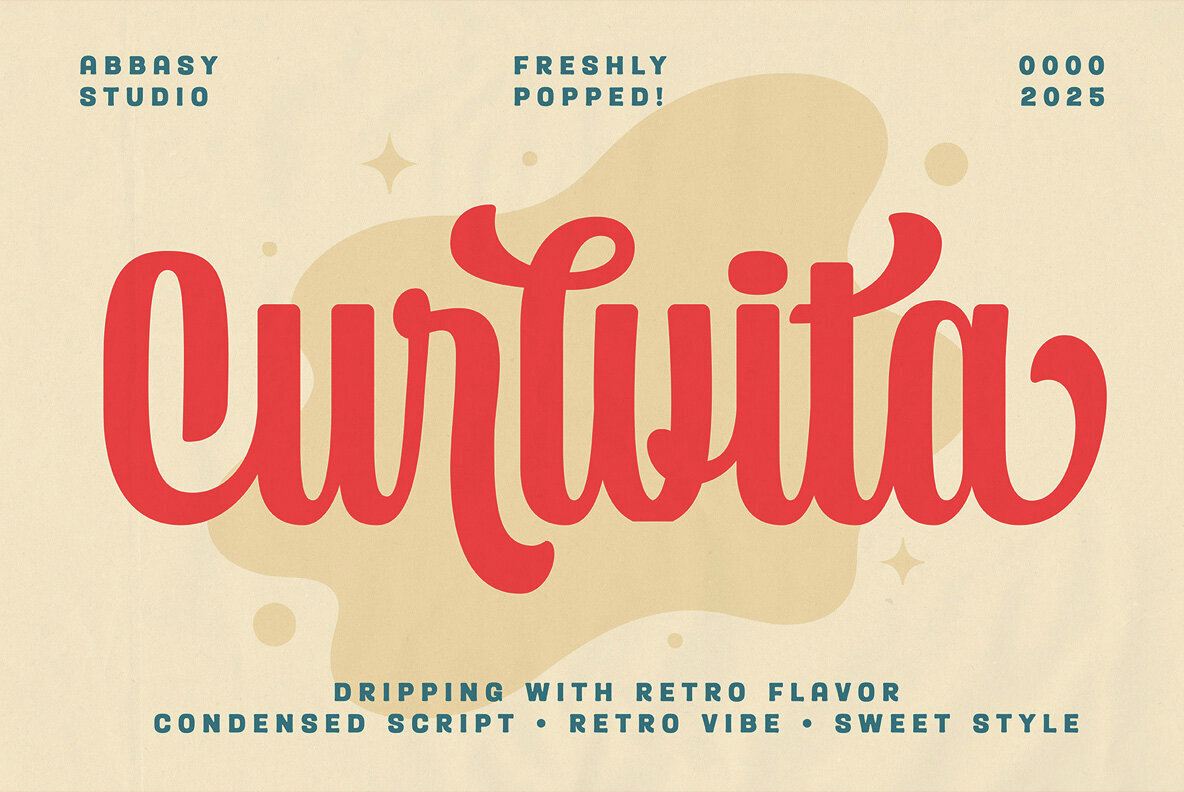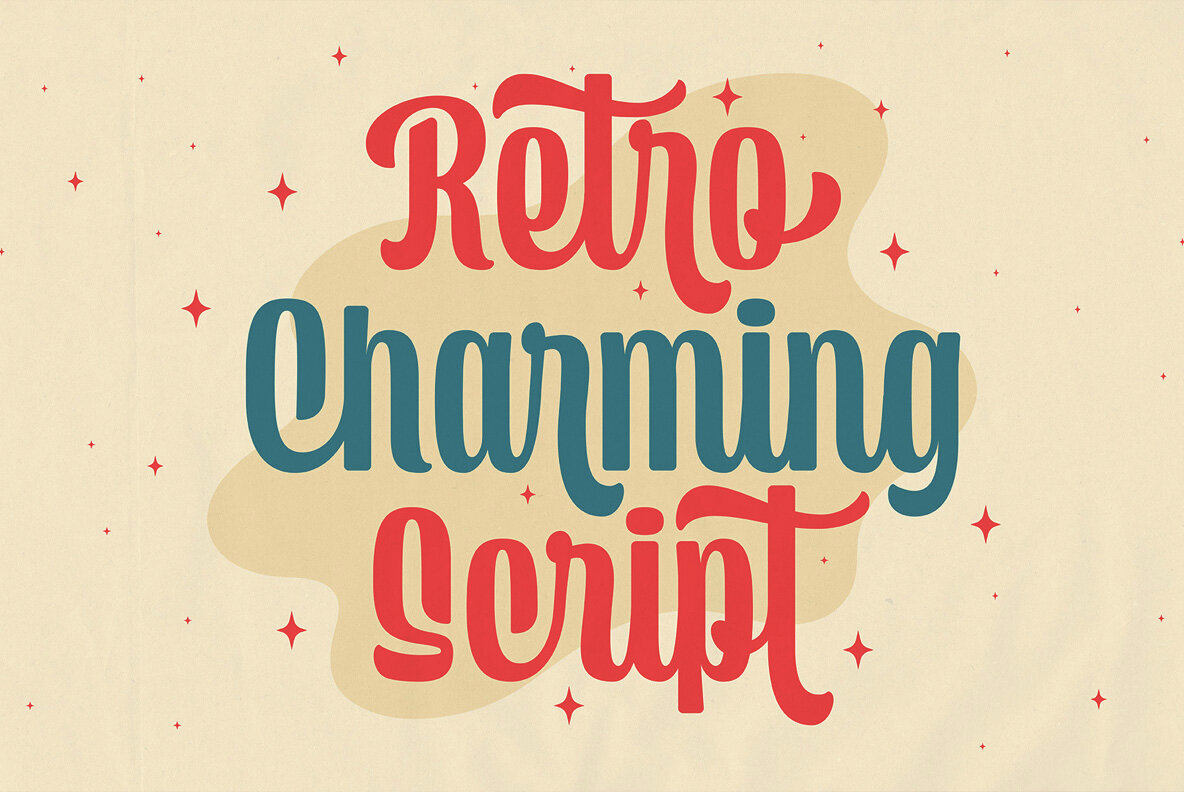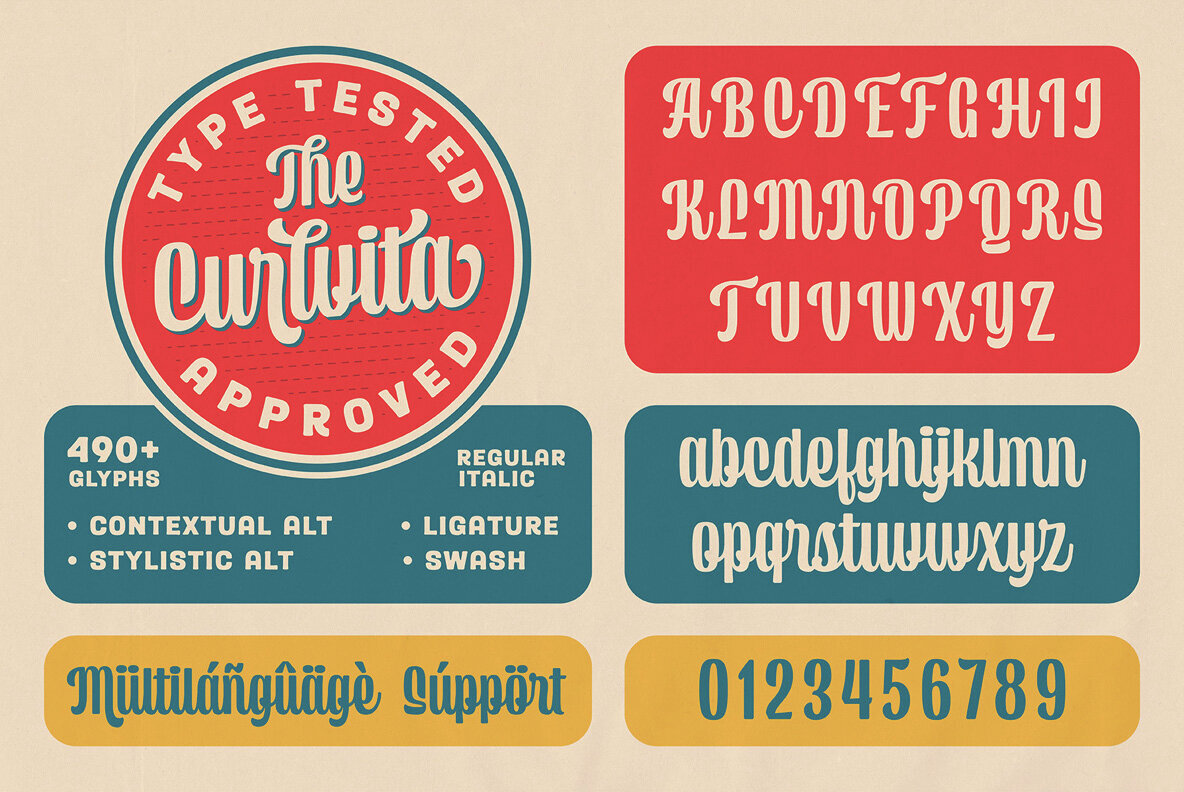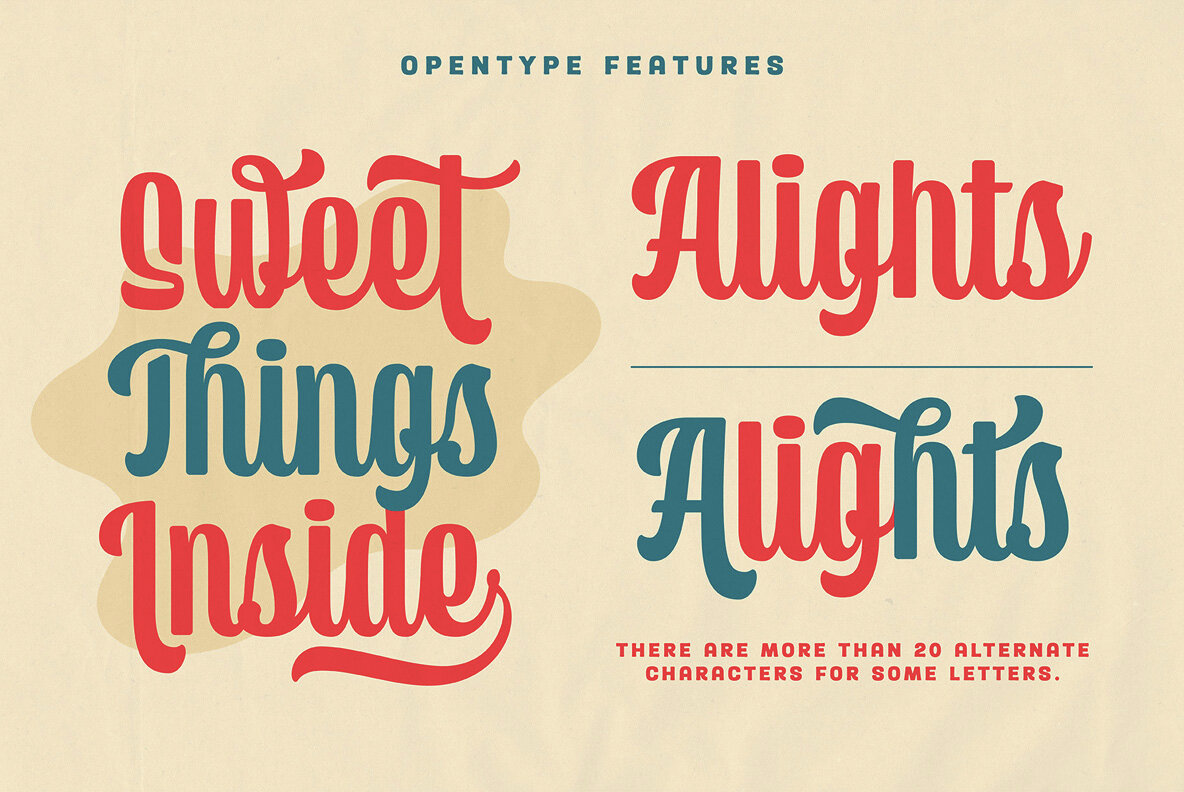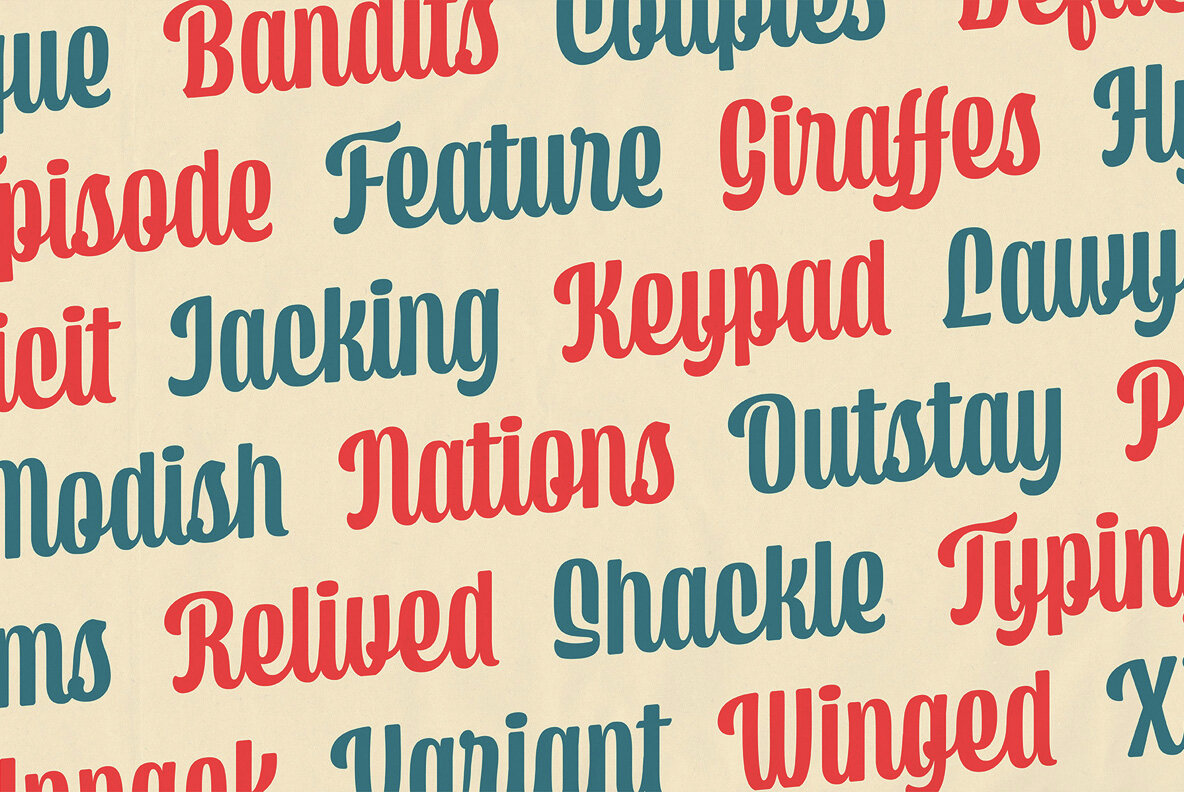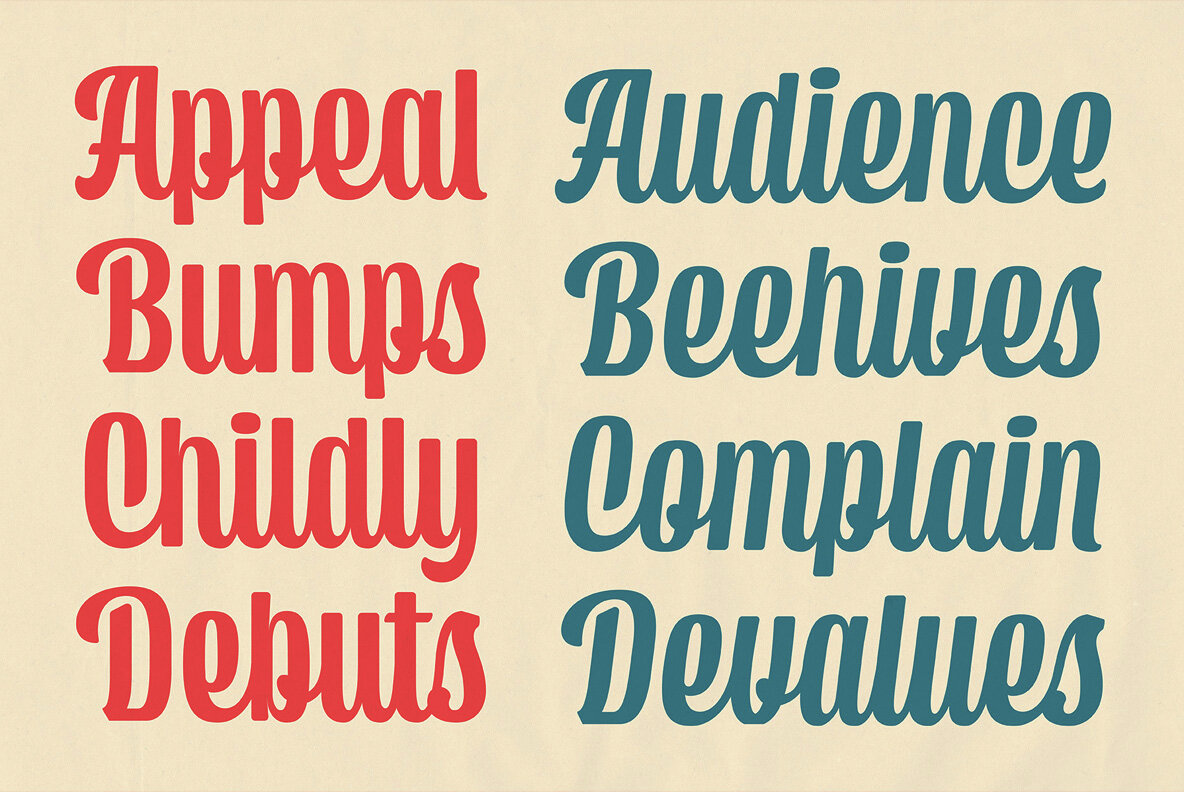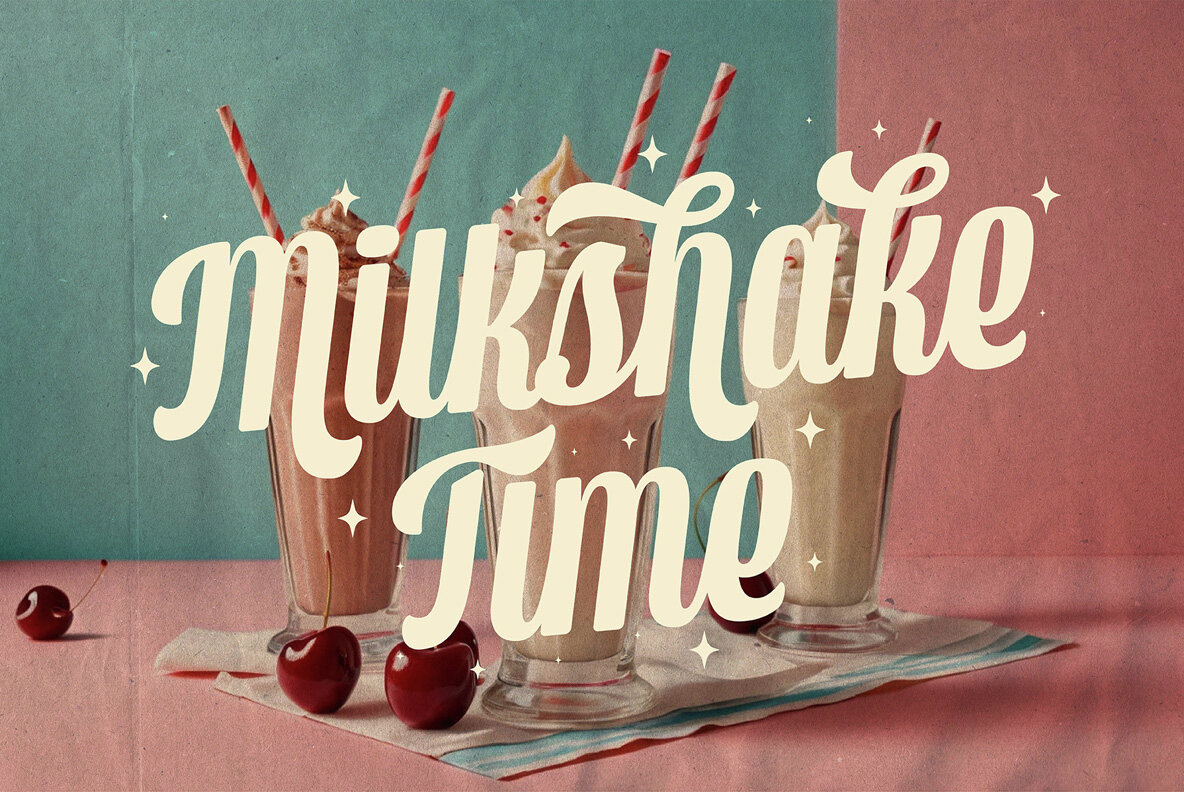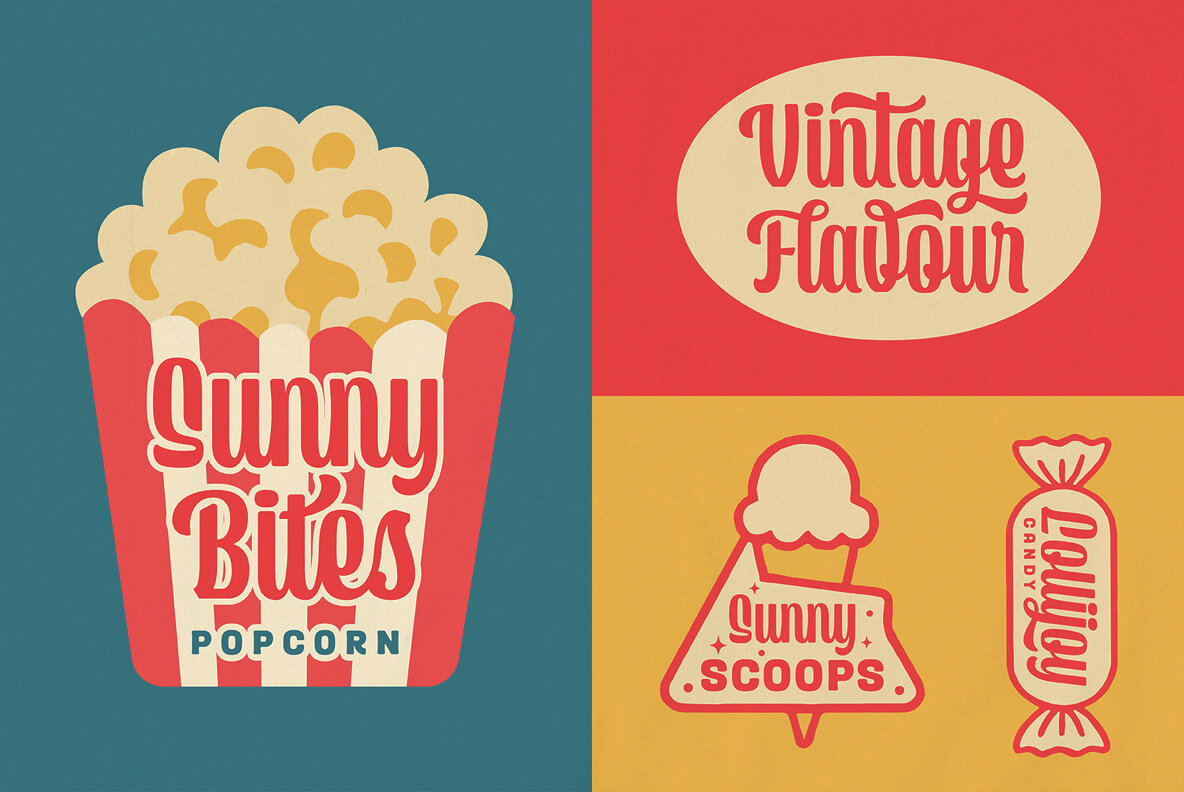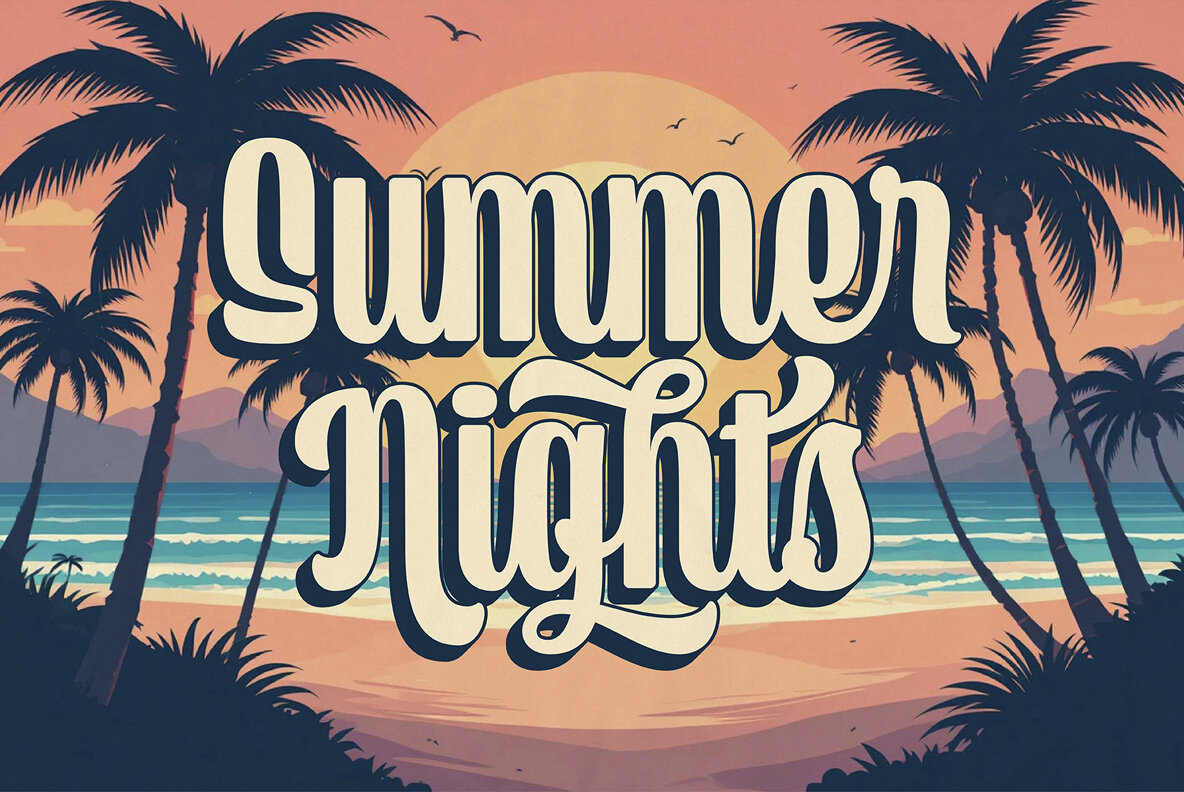
Curlvita Font
Curlvita Regular
Curlvita Italic
Curlvita is an engaging and playful typeface that captures the essence of retro design with a contemporary edge. Its dynamic curves and unique condensed style make it an ideal choice for projects that require a nostalgic yet fresh look. Perfect for logos, vintage posters, product packaging, and social media designs, Curlvita ensures that your creations are both striking and memorable. With a collection of over 490 glyphs, including contextual and stylistic alternates, ligatures, and swashes, this typeface offers endless creative possibilities. Its regular and italic styles provide added versatility for diverse design needs. Supporting multiple languages, Curlvita stands out as a versatile tool for global design projects. Features: Add a touch of charming retro energy to your designs with Curlvita.Curlvita: Retro Condensed Script for Creative Design